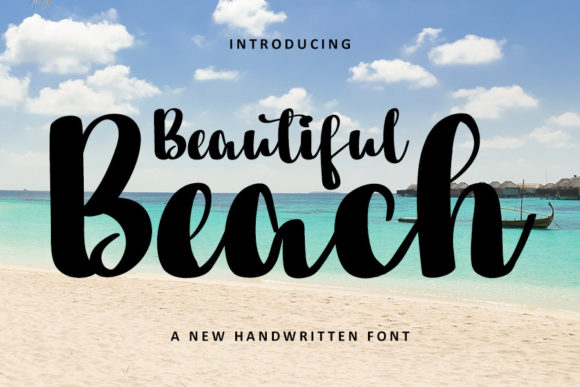
Get ready to dive into the enchanting world of typography with Beautiful Beach Font, where elegance meets modernity in a captivating dance of lines and curves. Crafted with the utmost care by the skilled artisans at Inermedia STUDIO, this script font is a masterpiece that embodies the timeless beauty of classic calligraphy.
Immerse yourself in the allure of Beautiful Beach's cursive allure. Each stroke, meticulously crafted, flows effortlessly across the page like a gentle ocean breeze, beckoning you to explore the boundless possibilities that lie within. Its delicate curves and graceful swashes evoke a sense of serenity and sophistication, making it the perfect choice for conveying heartfelt messages and creating designs that exude charm.
But Beautiful Beach is more than just a pretty face. Its versatility knows no bounds, making it a perfect fit for a myriad of creative endeavors. Whether you're crafting elegant invitations, designing captivating social media posts, or adding a touch of whimsy to your branding, Beautiful Beach will elevate your projects to new heights of visual appeal.